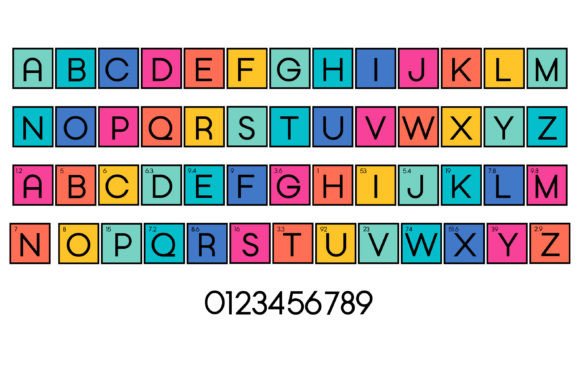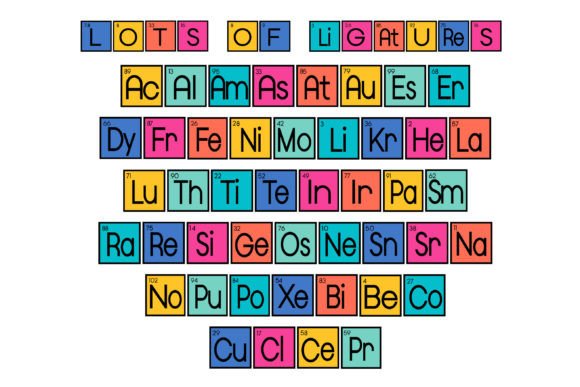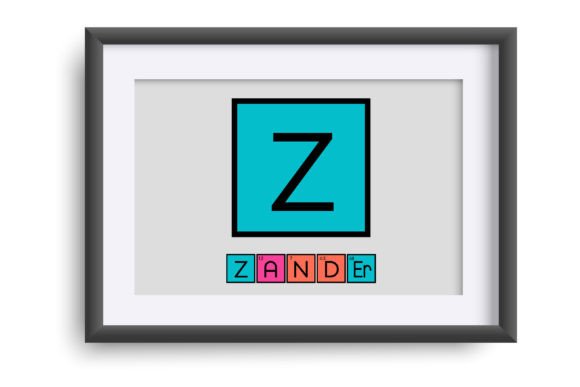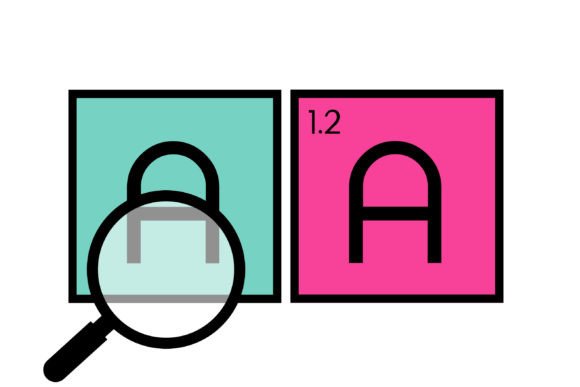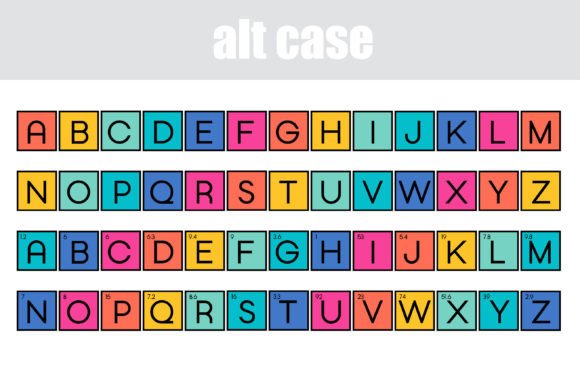
Unleash the Power of Atomic Summer Font
As a designer, there’s no shortage of creative moments that spark inspiration – a burst of color, a quirky typography, or a clever composition. But sometimes, it’s the subtle details that elevate a design from good to great. That’s where the Atomic Summer Font comes in, a vibrant and playful full-color font that brings the periodic table of elements to life.
This innovative font is perfect for designers looking to add a touch of whimsy and personality to their work. With its summer-inspired color palette and clever ligatures, the Atomic Summer Font is sure to captivate audiences and leave a lasting impression. Whether you’re working on a title, display, poster, or other design project, this font is a valuable addition to any designer’s toolkit.
- Unique Characteristics: Features a unique blend of futuristic and retro elements, making it perfect for designs that require a bold and eye-catching look.
Design Review: Atomic Summer Font
I recently had the chance to work with the Atomic Summer Font, and I must say, it’s a unique and interesting choice. ✨ The font’s bold and playful personality can add a fun touch to designs, making it perfect for summer-themed projects, advertisements, or social media campaigns. The font’s curves and rounded edges create a friendly and approachable feel, making it suitable for consumer-facing applications.
- ✨ Bold and eye-catching: The font’s thick lines and rounded edges make it perfect for grabbing attention.
- ✨ Versatile: Atomic Summer Font can be used in a variety of contexts, from advertisements to social media posts.
- ✨ Friendly: The font’s curves and rounded edges create a friendly and approachable feel.
- ⚠️ Limited legibility: In certain font sizes or styles, the letters can become difficult to read.
- ⚠️ Overuse: The font’s bold personality can become overwhelming if used too much, so it’s essential to balance it with other design elements.
Overall, I think Atomic Summer Font is a great choice for projects that need a fun and playful touch. While it has some limitations, the benefits far outweigh the drawbacks, and with careful use, it can be a fantastic addition to your design arsenal.
For the best results, pair Atomic Summer Font with bright, vibrant colors to create a playful and energetic look. Experiment with different font sizes and styles to add depth and visual interest to your designs.
Atomic Summer Font is perfect for summer-themed designs, such as beach party invitations, summer sale promotions, and outdoor event flyers. It’s also great for creating playful and eye-catching social media graphics, logos, and branding materials.
The Atomic Summer Font has a unique blend of modern and retro elements. However, there are several alternatives that offer similar characteristics with some variations.